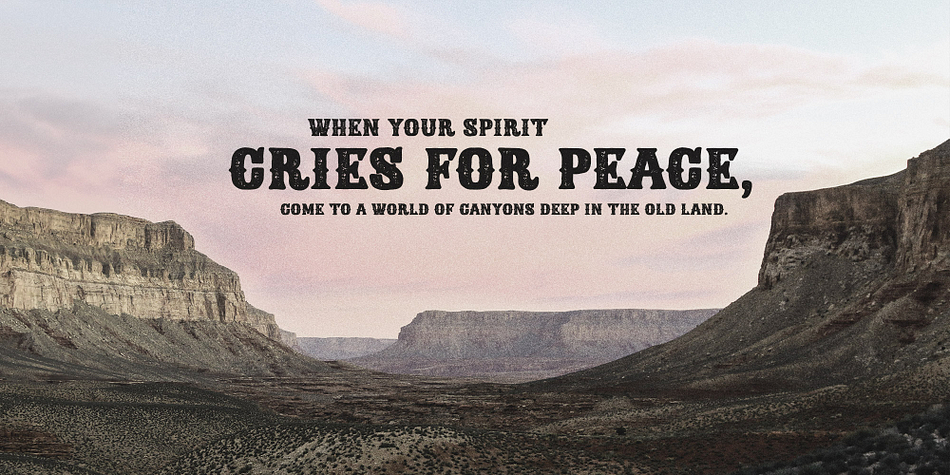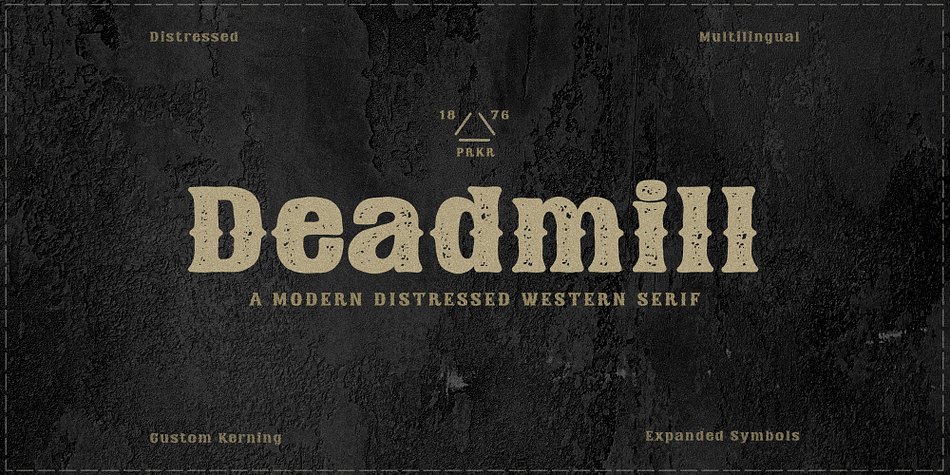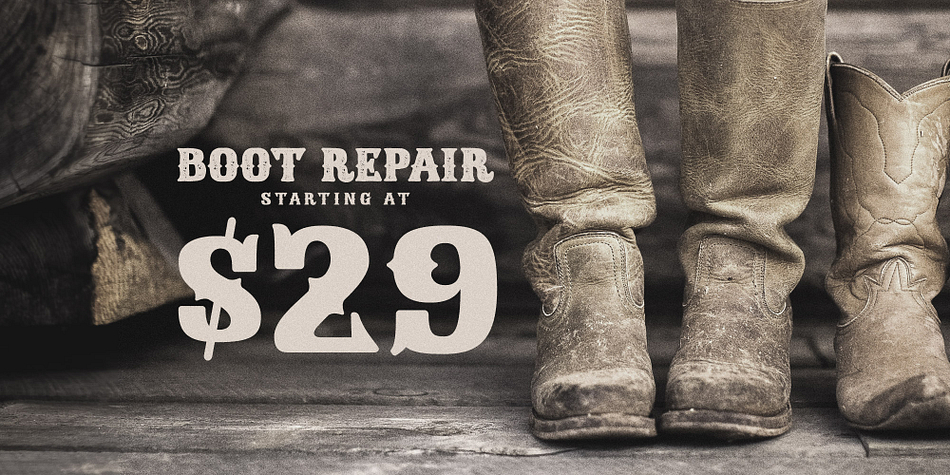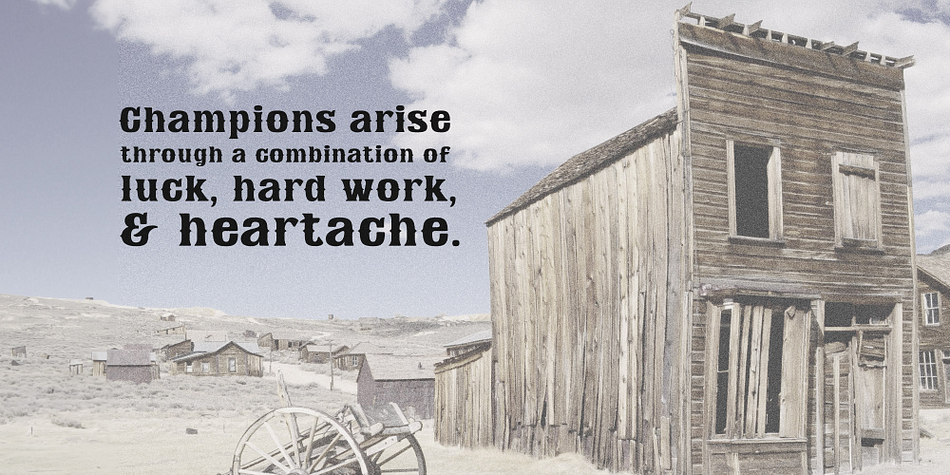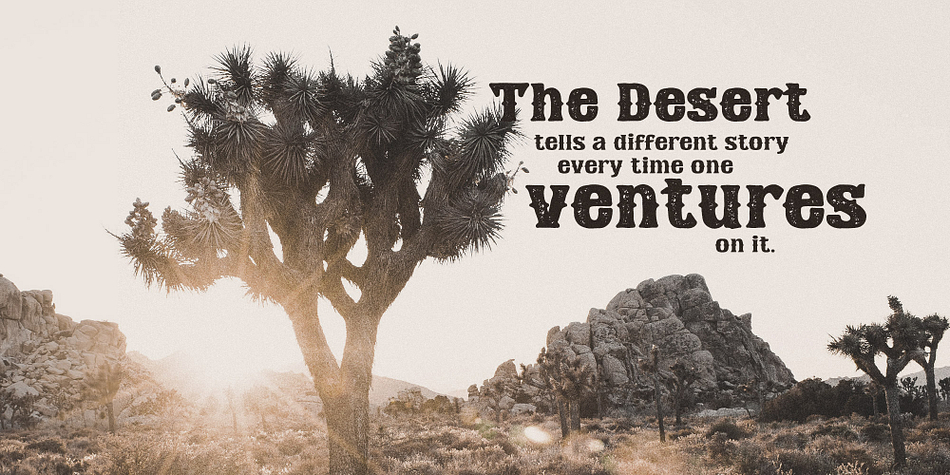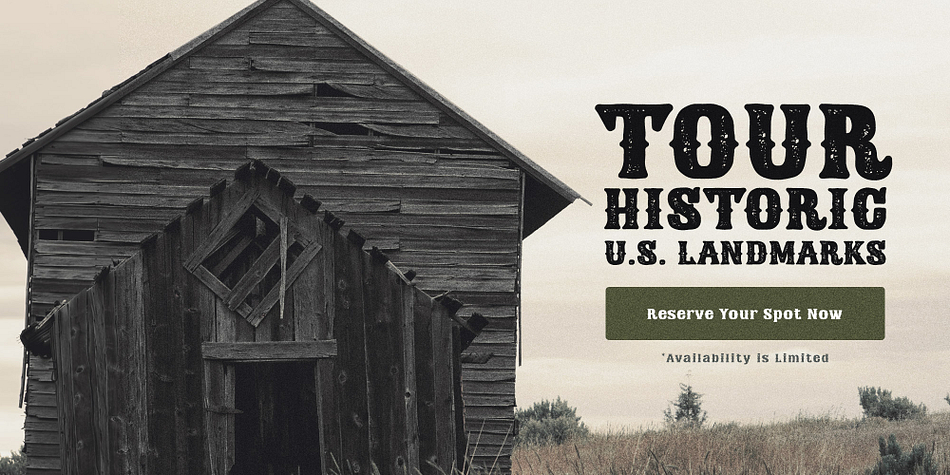
Deadmill is a western and wood type font family. This typeface has two styles and was published by Parker Creative.
Introducing Deadmill, a modern take on serif typefaces of the wild west with a handmade distressed variation. Rooted in the historic styles of the old west, Deadmill brings that vintage saloon look into the 21st century with multilingual characters, an expanded symbol set, and web-ready file formats.
Deadmill’s ‘rough around the edges’ styling is perfect for bringing a gunslinger’s wild west aesthetic to your next project, from wanted posters to rustic beer labels and beyond.